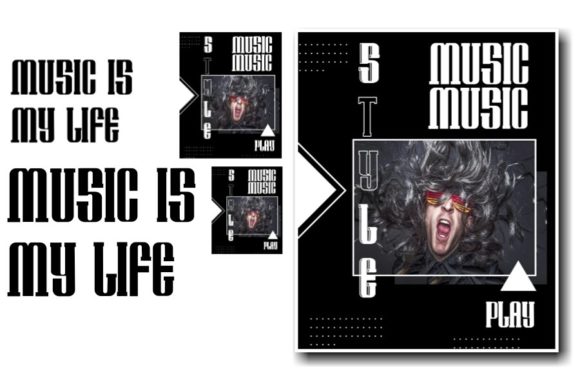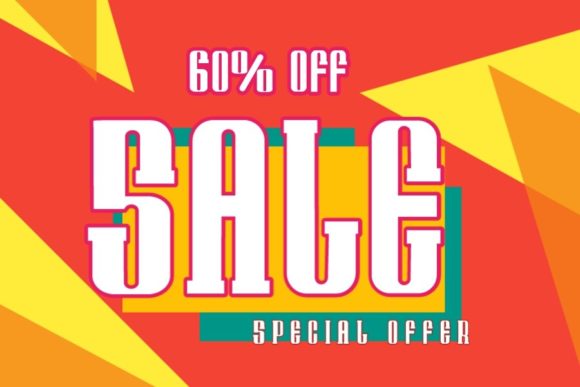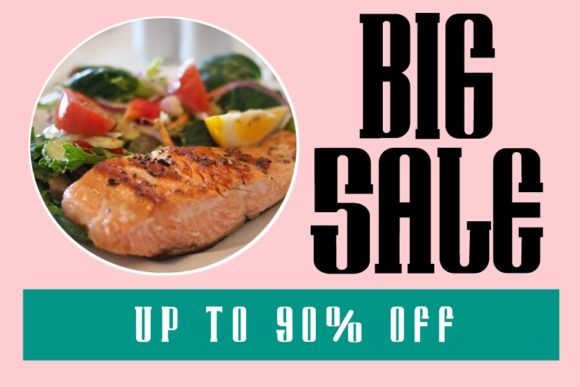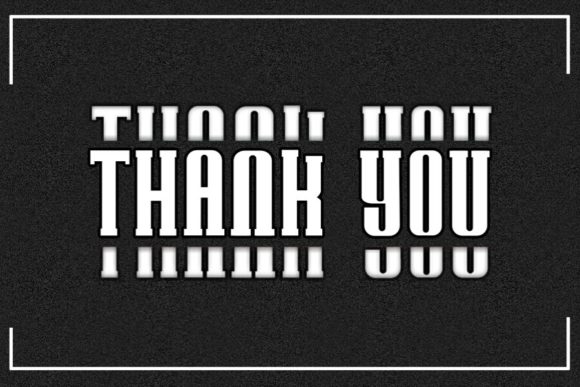
Introduction to Hollywood Font
You’ve spent hours pouring your heart and soul into a creative project, and it’s finally time to add the finishing touches. The right font can make all the difference, elevating your design from good to great. That’s where the Hollywood Font comes in – a tall and fancy display font that’s sure to leave a lasting impression.
Imagine a font that’s as glamorous as the city of stars itself. With its high-quality design and transparent background, the Hollywood Font is the perfect addition to any design library. Whether you’re working on a movie poster, a fashion campaign, or a luxury brand’s logo, this font is sure to bring a touch of sophistication and elegance to your project.
As a valuable resource for designers, the Hollywood Font offers a free download, making it accessible to creatives of all levels. With its versatility and high-quality design, it’s no wonder why this font is a must-have in any designer’s toolkit.
Hollywood Font
- High-quality font suitable for various creative projects, including film titles, posters, and more.
- Features a transparent background, allowing for seamless integration with images and other design elements.
- Unique characteristics include its elegant, vintage-inspired design and wide range of glyphs for creative expression.
Honest Review: Hollywood Font
I recently had the chance to work with the Hollywood Font, and I must say it’s been a game-changer for my creative project. This high-quality font has been a valuable addition to my design resource library.
One of the things that stands out about the Hollywood Font is its versatility. It’s perfect for a variety of creative projects, from film titles to advertising materials.
- ✨ High-quality design: The font is professionally designed and has a high level of detail that really makes it stand out.
- ✨ Transparent background: The transparent background option is a huge plus for designers who need to create layered designs.
- ⚠️ Limited customization options: While the font itself is highly customizable, the options for modifying the font’s appearance are somewhat limited.
- ⚠️ Not suitable for all designs: While the font is versatile, it may not be the best choice for more minimalist or simple designs.
Overall, I’m really impressed with the Hollywood Font and would highly recommend it to designers looking for a high-quality font for their creative projects.
Experiment with different font sizes and styles to get the most out of the Hollywood Font. Use it in combination with other design elements, such as images and graphics, to create visually appealing designs.
The Hollywood Font is perfect for use in creative projects, such as movie posters, social media graphics, and business cards. Its high-quality design resource and transparent background make it a valuable addition to any design library.
Alternatives to Hollywood Font
Pacifico Font is a high-quality, elegant script font ideal for creative projects requiring a touch of sophistication. It features a transparent background and is suitable for designing logos, headings, and titles. When to use: For wedding invitations, fashion brands, or luxury products.
Pacifico Font is more refined and sophisticated compared to Hollywood Font, making it perfect for high-end designs. Its cursive style adds a personal touch, while its high contrast makes it easily readable.
Great Vibes Font is a modern, high-quality script font that’s perfect for creating a fun and energetic atmosphere. It’s ideal for design projects requiring a creative and playful vibe. When to use: For music festivals, youth brands, or entertainment companies.